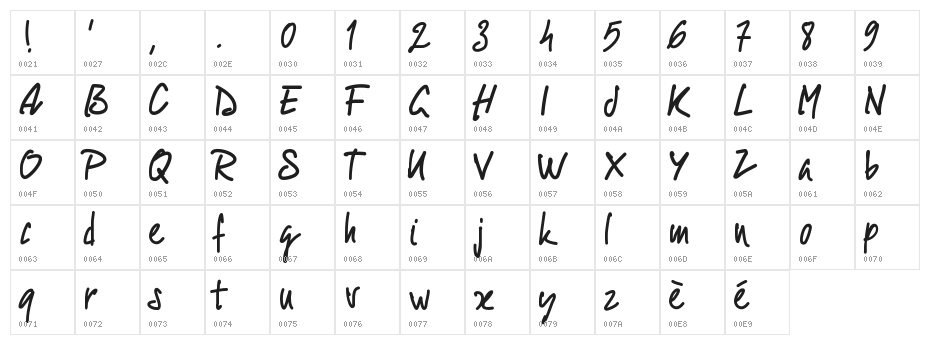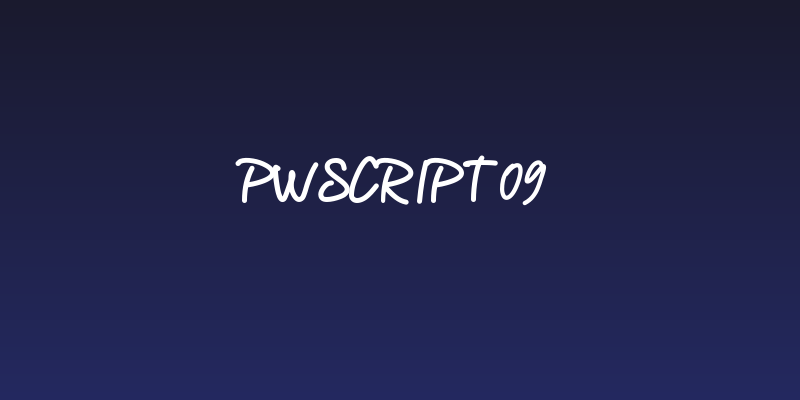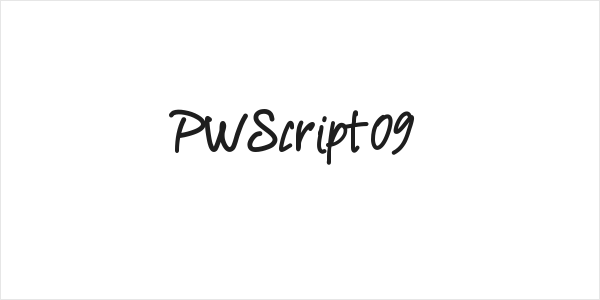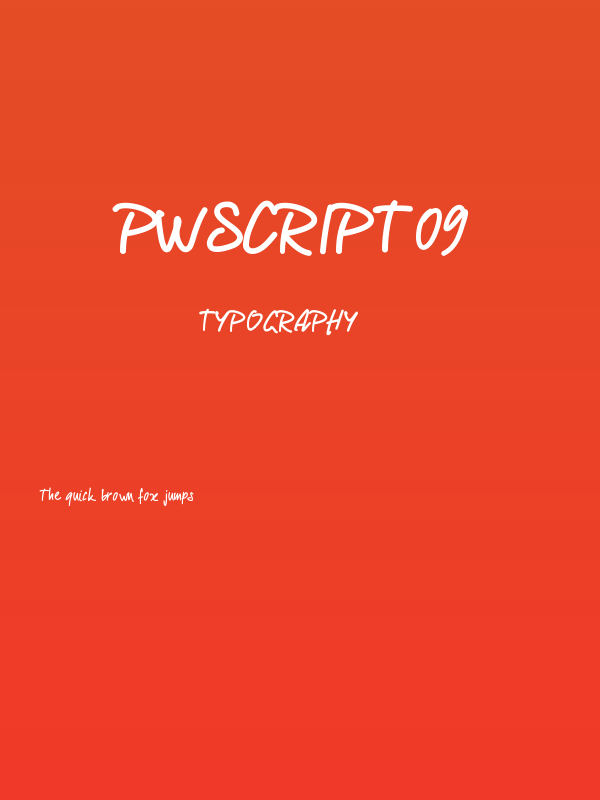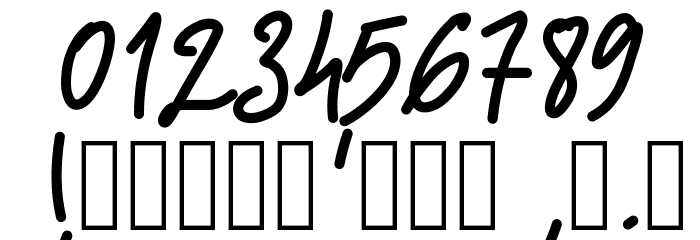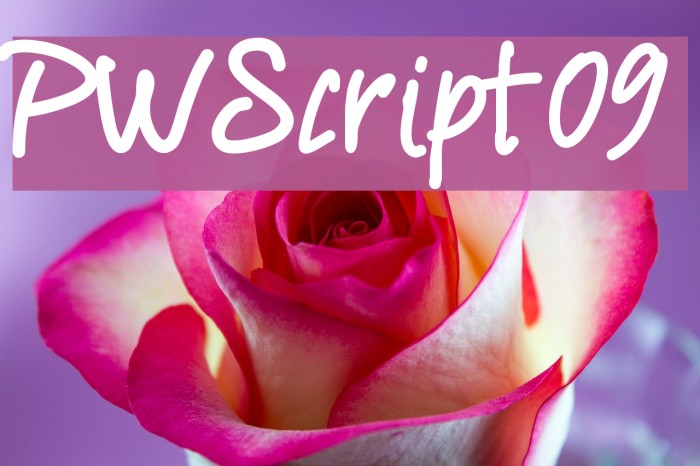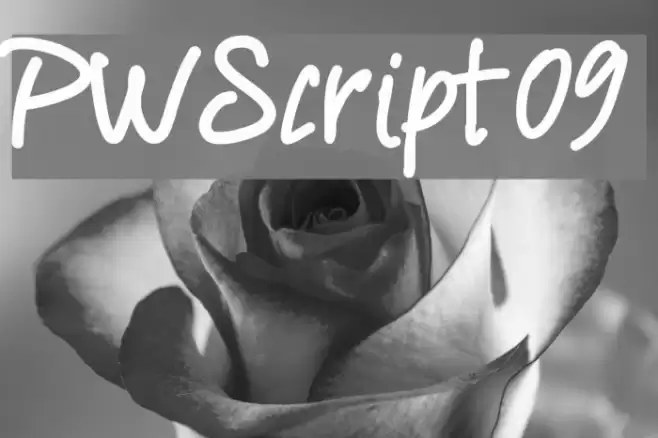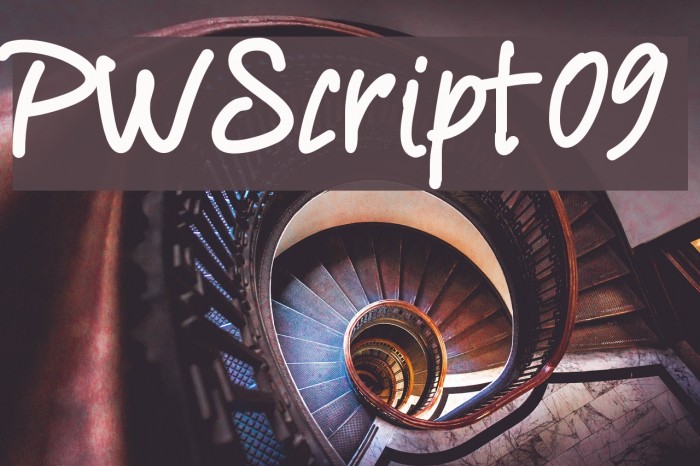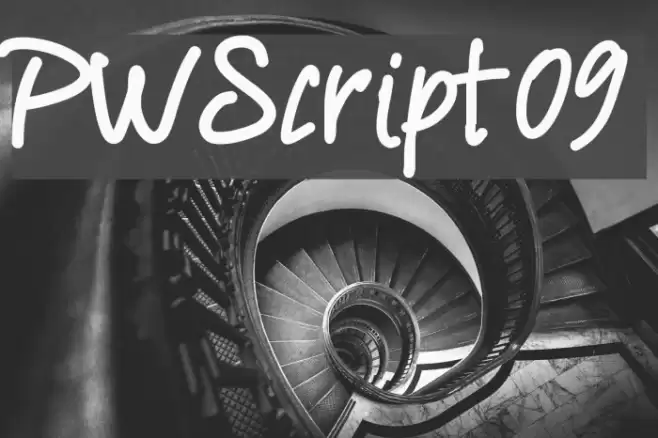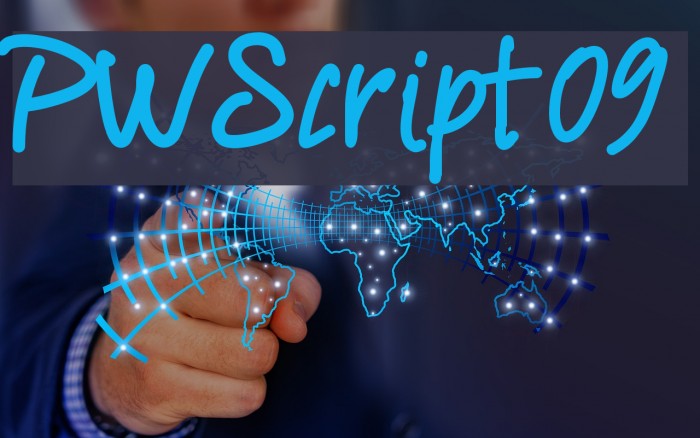
PWScript09 Font
PWScript09 Description
This font exhibits a casual, handwritten style with a playful and energetic feel. The letters are slightly slanted, giving it a dynamic and informal appearance. The strokes are smooth and fluid, with a consistent medium thickness that maintains readability while adding a touch of personality. The uppercase and lowercase letters are well-balanced, and the numerals are clear and distinct. Special characters are included, maintaining the same lively style. This font is perfect for projects that require a personal touch or a creative flair.
| Overall Style | Casual |
| Use Case | Logos, Headlines, Creative projects |
| Proposed Projects | Ideal for greeting cards, invitations, personal branding, and creative projects that require a personal touch. |